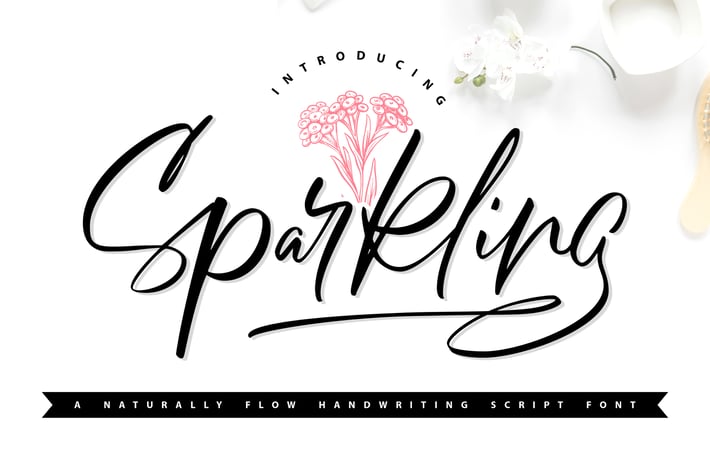
Sparkling | Handwriting Script Font
Sparkling | Handwriting Script Font with a calligraphy style, So beautiful on invitation like greeting cards, branding materials, business cards, quotes, posters, and more!